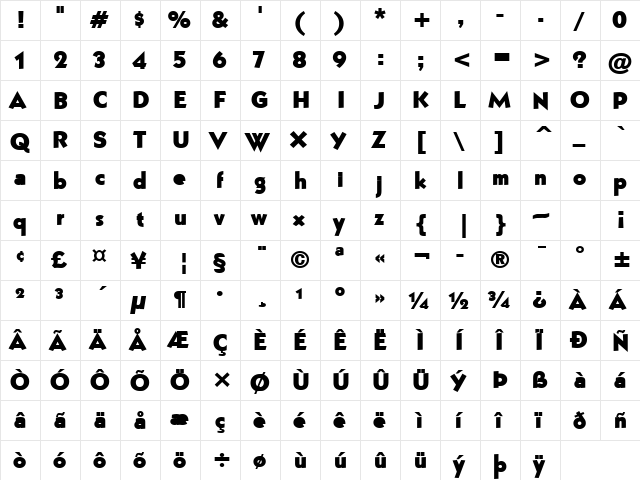
Bully Bold
Design Context for Bully Typeface
Bully takes a measured approach to typography — its balanced proportions and neutral character make it a reliable workhorse for both digital and print work. The heavy weight commands attention and anchors typographic hierarchies.